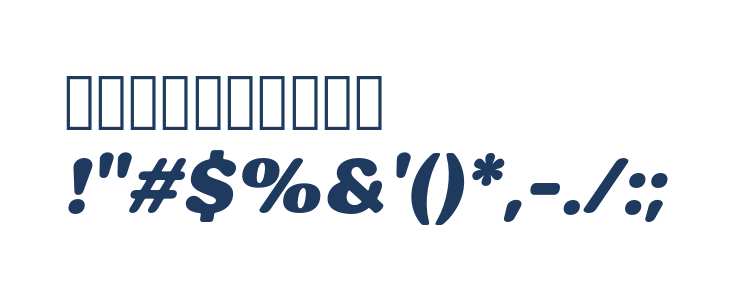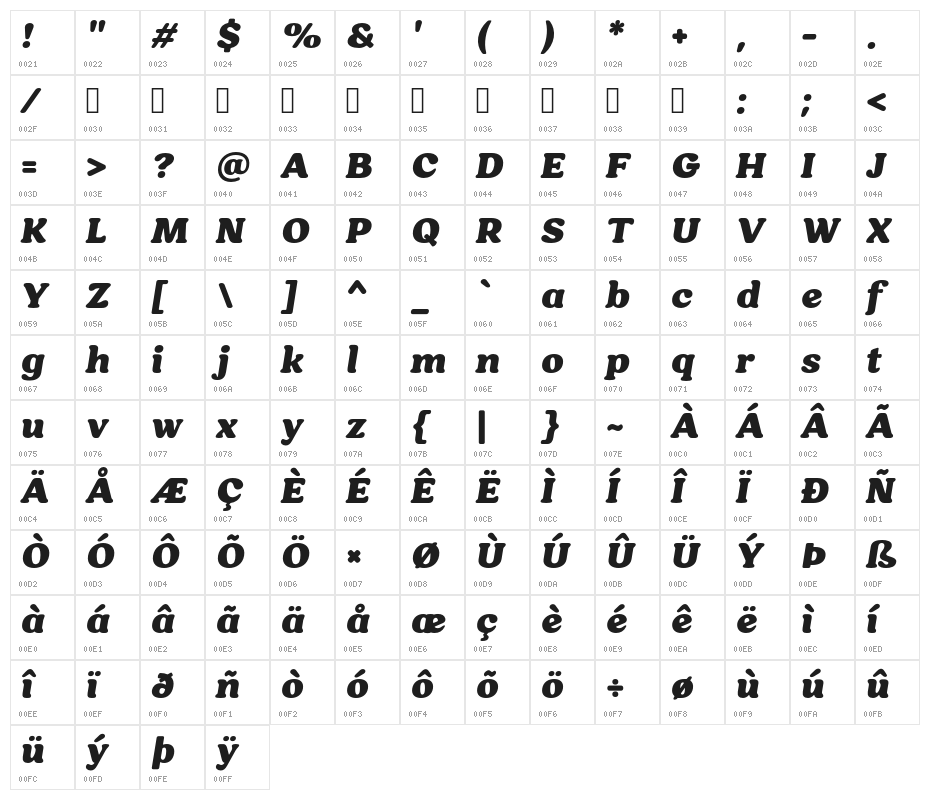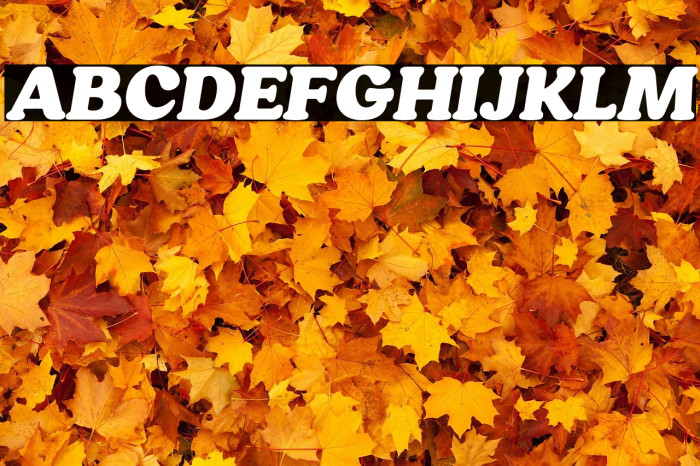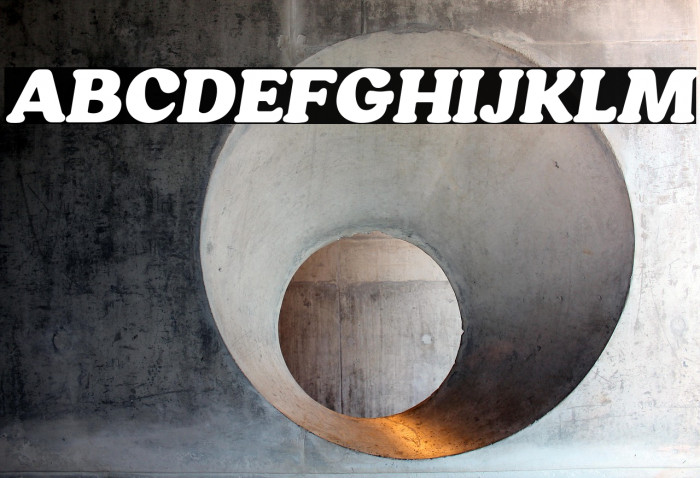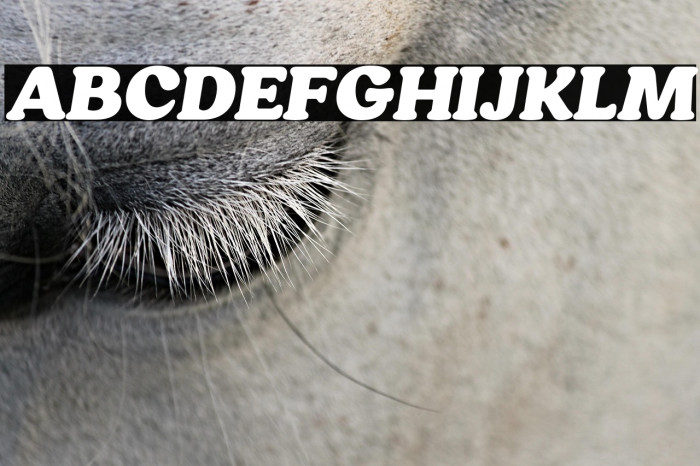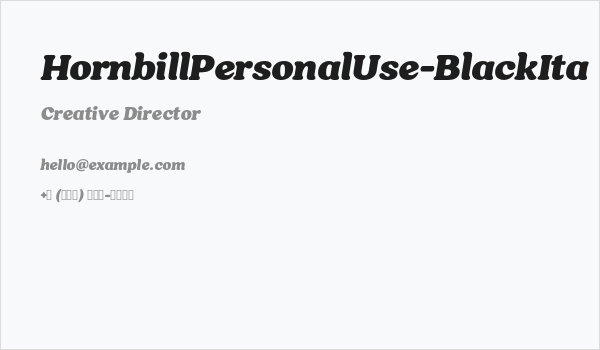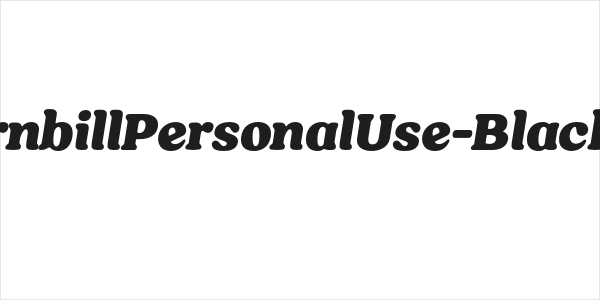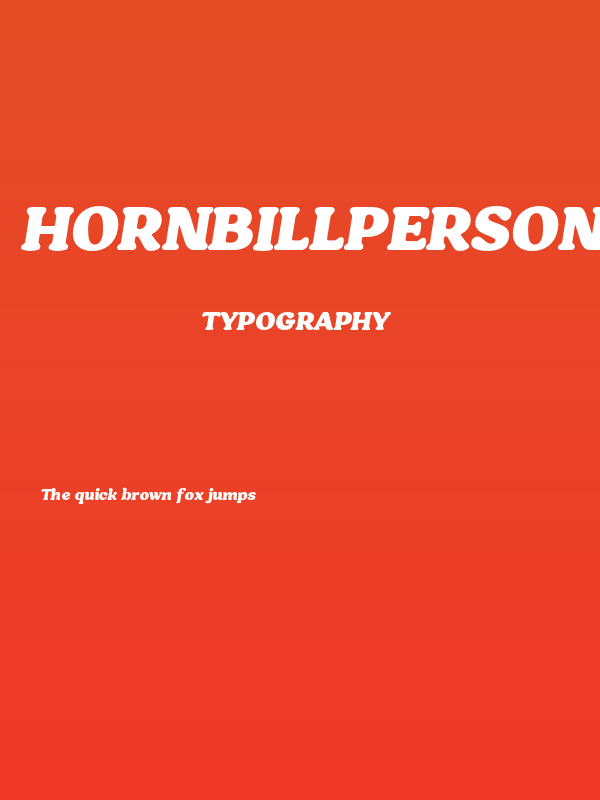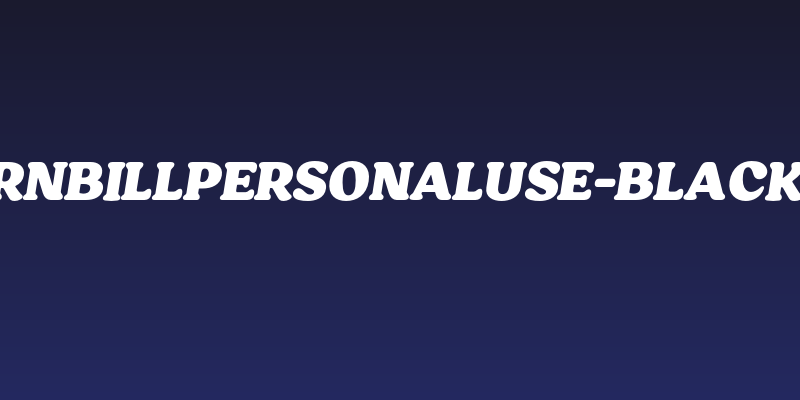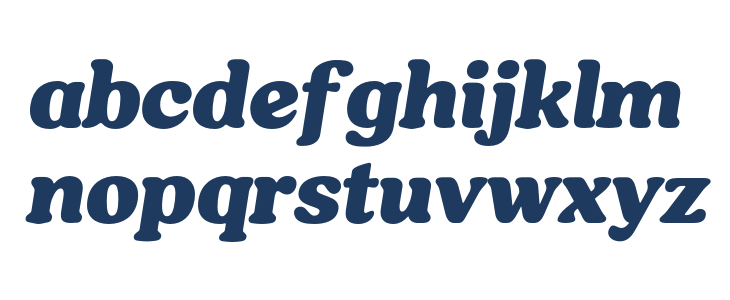
HornbillPersonalUse-BlackIta Font
HornbillPersonalUse-BlackIta Description
This font features a bold and dynamic style with a strong presence. The characters are italicized, giving them a forward-leaning appearance that conveys movement and energy. The strokes are thick and consistent, providing a high contrast that enhances readability and impact. The uppercase letters are robust and commanding, while the lowercase letters maintain a cohesive flow with rounded edges. The numerals and special characters are designed to match the overall boldness and style, making them suitable for various applications. This font is ideal for projects that require a strong visual statement.